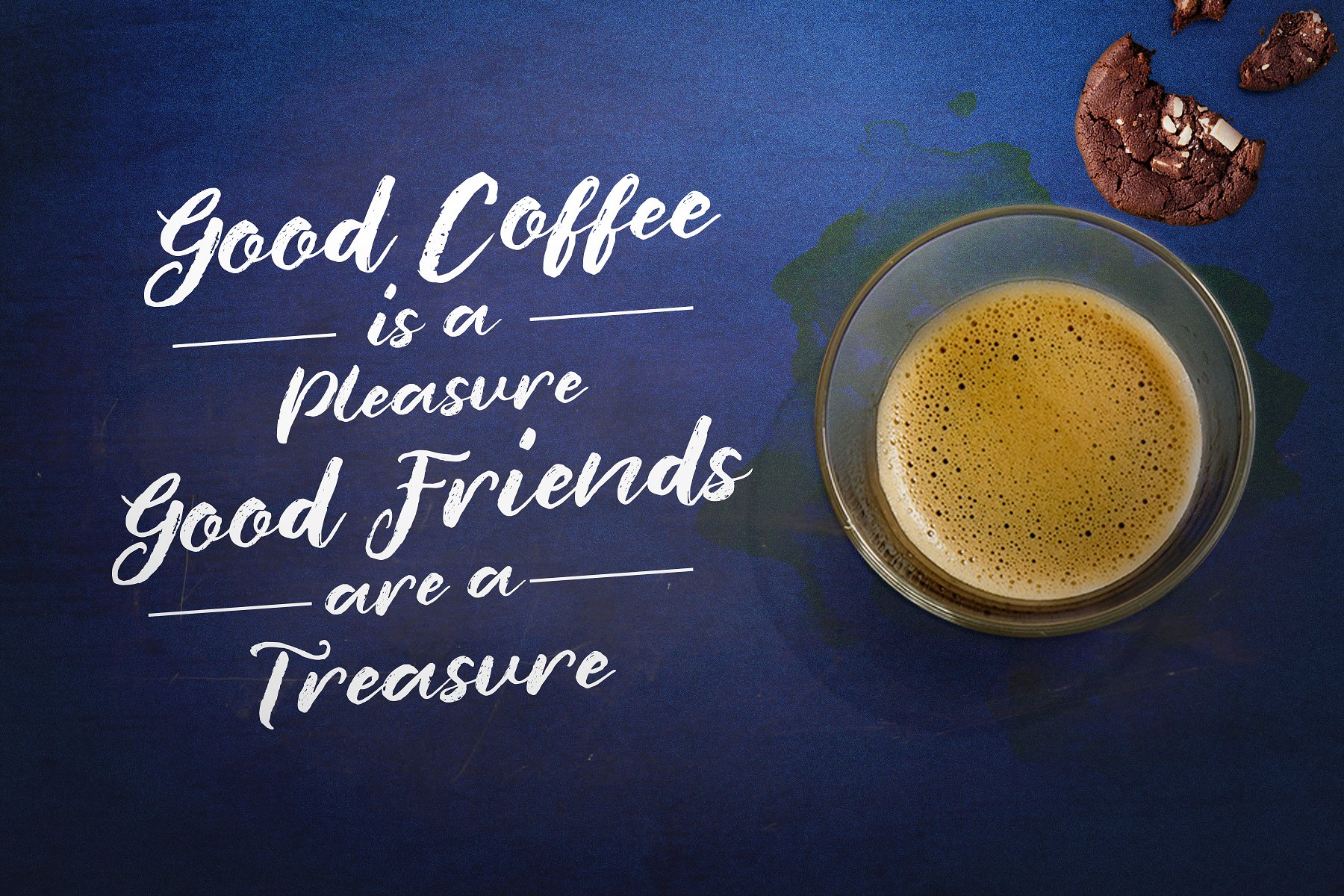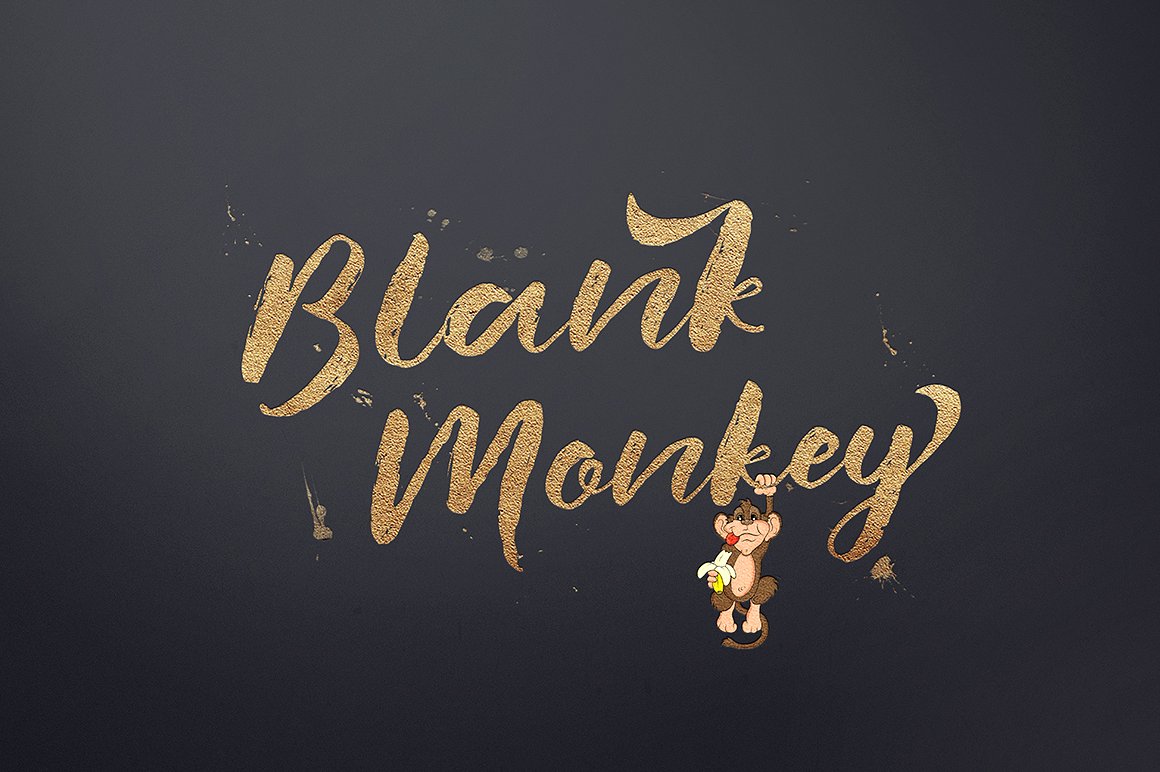
Blank Monkey Script Font
Introducing Blank Monkey, a typeface created stylized handwriting is clearly visible charms, made more elegant impression posts and more passionate. It comes with different styles that will make a wonderful impression
| Classification: | Brush Fonts, Handwritten Fonts, Script Fonts |